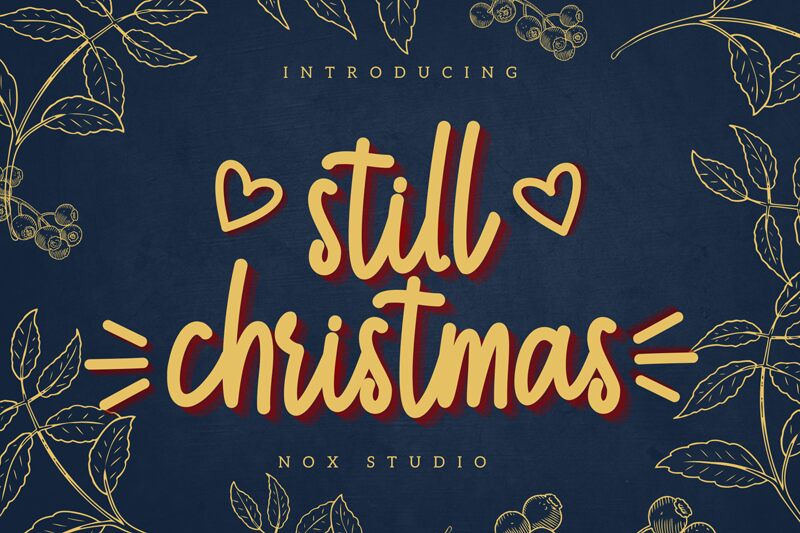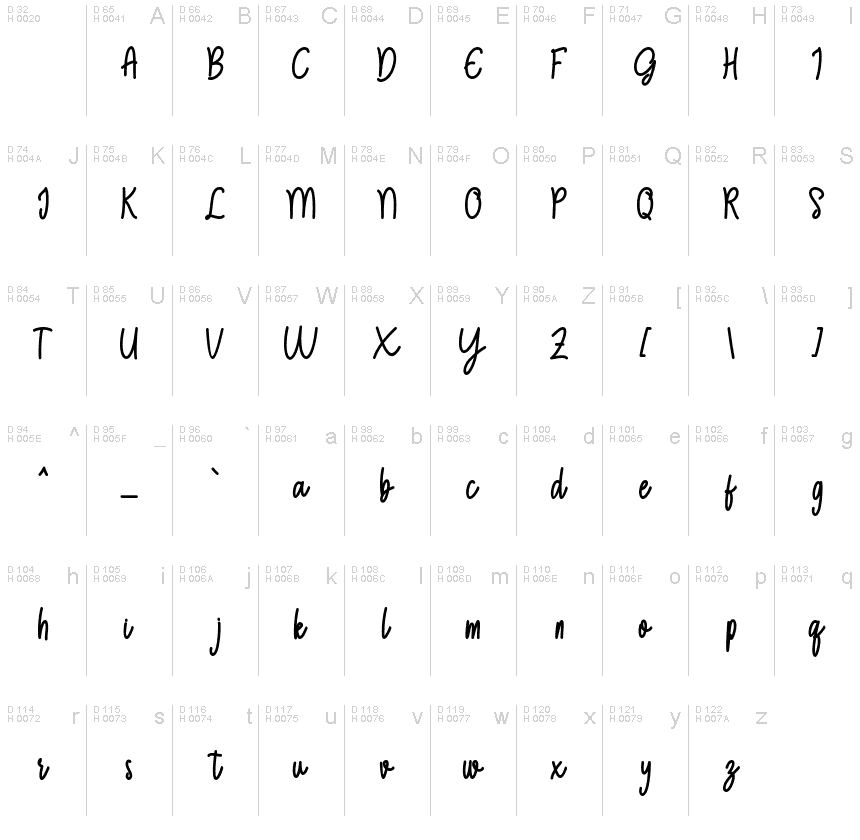
Still Christmas
Still Christmas, the enchanting semi-light handwritten font designed by Sarif Letter, brings a touch of warmth and whimsy to any project. Its charming curves and playful loops evoke the joy and magic of the holiday season, making it perfect for greeting cards, invitations, and festive signage. The semi-condensed width allows for easy readability while maintaining a delicate appearance. Whether you're creating an eye-catching logo or designing cozy branding for a winter market, Still Christmas is sure to add that special spark of cheer. Spread the holiday spirit with this delightful typeface!